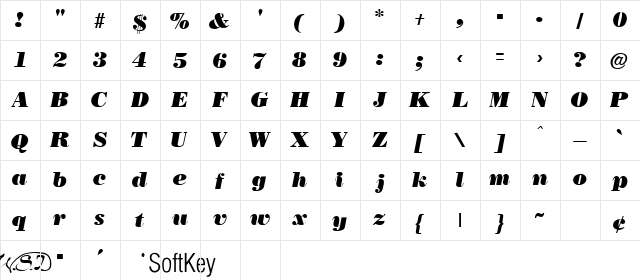
NecBlack Italic Regular
Design Context for NecBlack Italic Typeface
NecBlack Italic takes a measured approach to typography — its balanced proportions and neutral character make it a reliable workhorse for both digital and print work. The slanted form adds forward momentum and visual energy.
Pro Tip: Try NecBlack Italic for annotation and caption copy alongside an upright companion — the contrast in angle creates a dynamic but ordered typographic system.